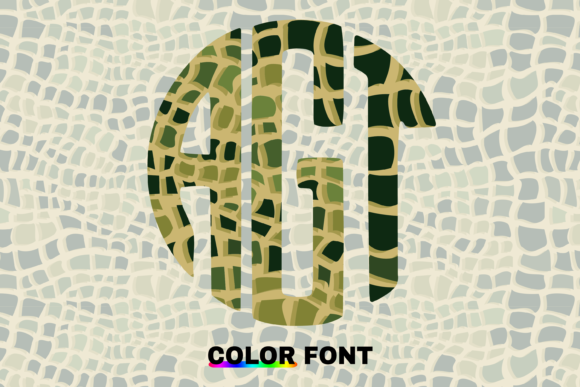
Get Ready to Snap into Creativity with the Alligator Circle Font
Have you ever sat at your desk, staring blankly at a blank canvas, trying to conjure up the perfect design to match your client’s whimsical style? You know, that feeling when nothing seems to spark inspiration? That’s exactly what happened to us when we first discovered the Alligator Circle Font – a delightful, 3-letter monogram font that’s as cute as it is versatile.
With the Alligator Circle Font, you can add a touch of whimsy to any project, from custom designs to DIY crafts. Its customizability makes it an absolute dream to work with, allowing you to type it out with ease. Plus, its PUA encoding means you can access all of the glyphs and swashes without breaking a sweat. Whether you’re a seasoned designer or a crafty beginner, this font is sure to become a trusted companion in your creative journey.
- Font Family: Alligator Circle Font, a unique and quirky display font.
- Unique Characteristics: Distinctive circle-shaped letterforms, a blend of modern and vintage aesthetic, and a wide range of ligatures and swashes for added flair.
Designer Review: Alligator Circle Font
Overall, I think the Alligator Circle Font is a unique and eye-catching choice for any design project. Here are some of its strengths:
- ✨ **Uniqueness**: The font’s irregular shape and bold lines make it stand out from more traditional font styles.
- ✨ **Playfulness**: The Alligator Circle Font is perfect for designs that require a touch of whimsy and fun.
- ✨ **Flexibility**: The font comes in a range of weights and styles, making it suitable for both headline and body text.
- ⚠️ **Readability**: In certain contexts, the font’s irregular shape can make it difficult to read, especially at smaller font sizes.
- ⚠️ **Versatility**: While the font is flexible, it may not be the best choice for designs that require a more traditional or professional look.
Overall, I think the Alligator Circle Font is a great choice for designs that require a bold and playful touch. While it may not be suitable for every project, it’s a unique and effective option for those looking to add some personality to their designs.
The Alligator Circle Font is ideal for:
- Creating eye-catching headings and titles.
- Designing unique and playful logos.
- Adding a touch of whimsy to invitations and social media graphics.